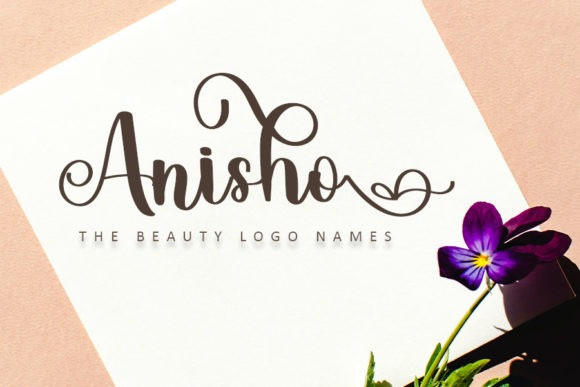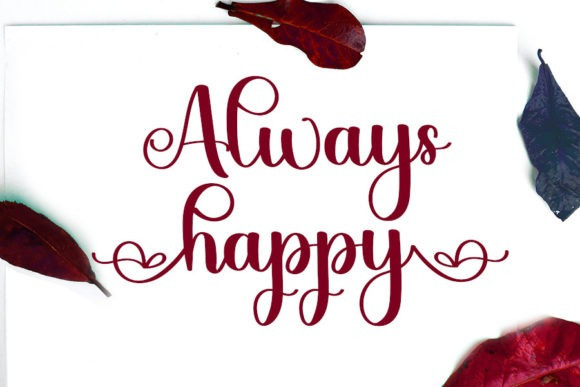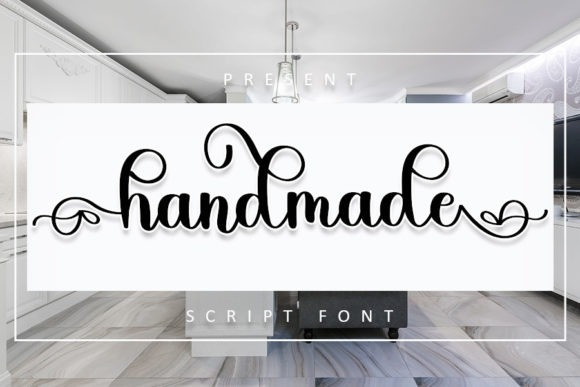
Handmade Font
Handmade Calligraphy Font is a flowing and graceful script font. Fall for its ravishing style and use it to create gorgeous wedding invitations, beautiful stationary art, eye-catching social media posts, and much more! This font is PUA encoded which means you can access all of the amazing glyphs and ligatures with ease!